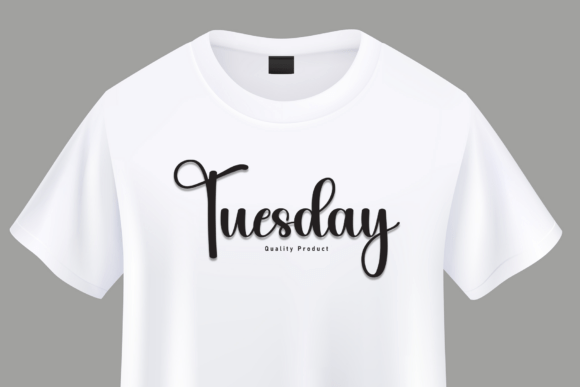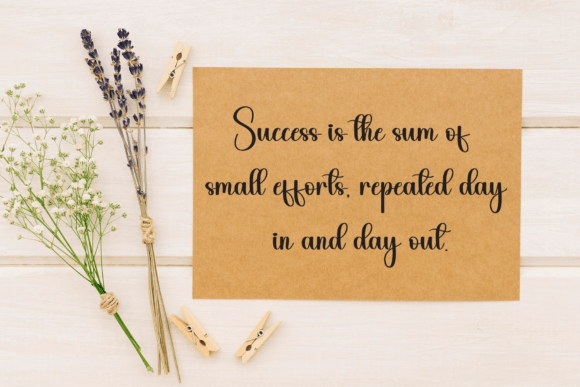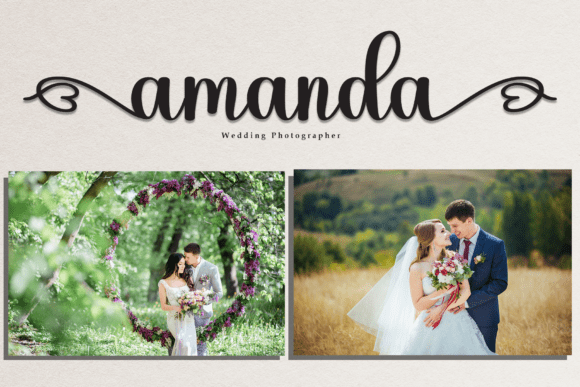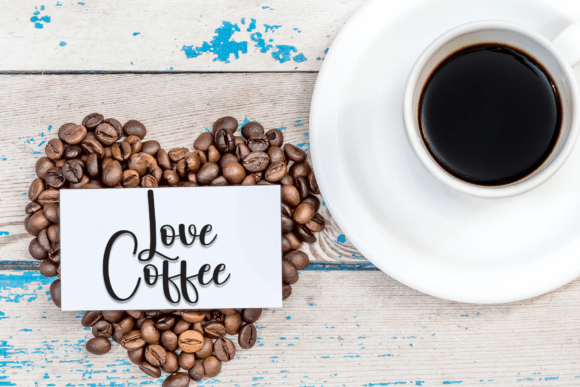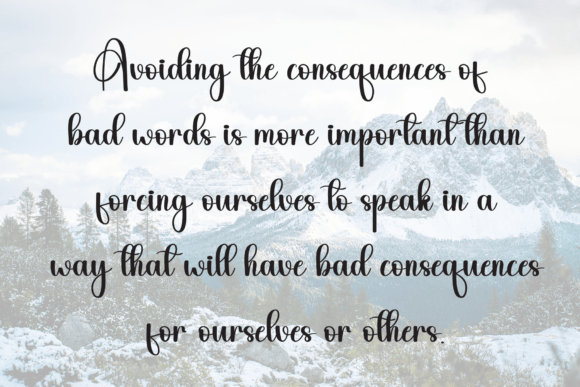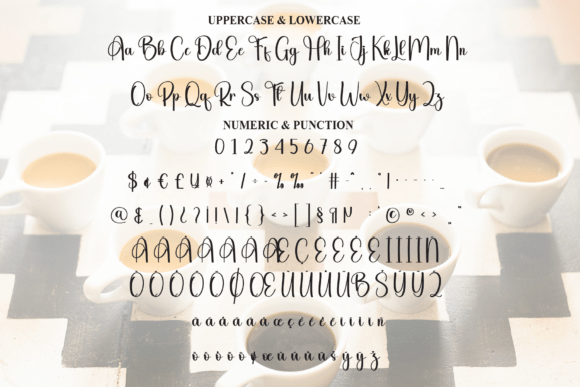
The Power of Choice: Unlocking Elegance and Playfulness in Your Designs
I’ll never forget the time I was working on a branding project for a boutique bakery, and I just couldn’t find the right font to capture their unique personality. The client wanted something that was both elegant and playful, but everything I tried seemed to lean too far in one direction or the other. That’s when I stumbled upon Choice Font, a stylish handwritten script font that instantly won me over. Its fluid strokes and charming curves brought a personal feel to my designs that I’d been struggling to achieve.
A First Impression: What I Love About Choice Font
So, what makes Choice Font so special? Here are a few things that I absolutely love:
- ✨ Elegant yet approachable: Choice Font strikes the perfect balance between modern sophistication and playful charm.
- ✅ Versatile: Whether you’re designing a logo, packaging, or invitation, this font adapts effortlessly to any project.
- 💫 Unique character: The font’s fluid strokes and curves give it a distinctly personal feel that sets it apart from more generic fonts.
The Not-So-Perfect: A Few Quirks to Consider
While Choice Font is an amazing addition to any design toolkit, it’s not without its limitations. Here are a few things to keep in mind:
- 🤔 Legibility at small sizes: Like many script fonts, Choice can get a bit tricky to read at very small sizes. Make sure to test it out at different scales to ensure it works for your project.
- ⚠️ Limited use in body text: While Choice is perfect for headlines and titles, it’s not the best choice for longer blocks of text. Stick to shorter paragraphs or use it as an accent font to add visual interest.
The Story Behind Choice Font: Designer Inspiration
Ever wonder how fonts come to life? While the actual story behind Choice Font might be a mystery, let’s imagine that it was created by a designer who wanted to capture the essence of handwritten elegance in a digital format. Inspired by the fluid strokes of calligraphy and the charm of handwritten letters, Choice Font was born – a beautiful blend of modern sophistication and playful personality.
| Is Choice Font suitable for body text? | While Choice Font is stunning for headlines and titles, it’s not recommended for longer blocks of body text. Its elegant, cursive style is best used as an accent or headline font. |